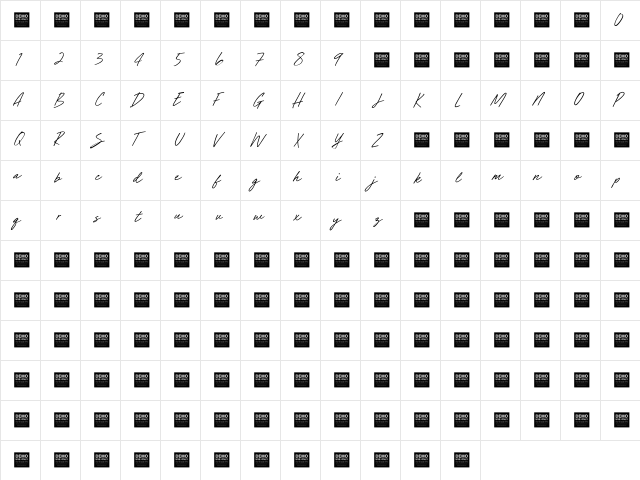
Simulate Minds - Demo Regular
Design Context for Simulate Minds - Demo Typeface
Simulate Minds - Demo is a composed and adaptable typeface that performs quietly and consistently across a wide range of design contexts.